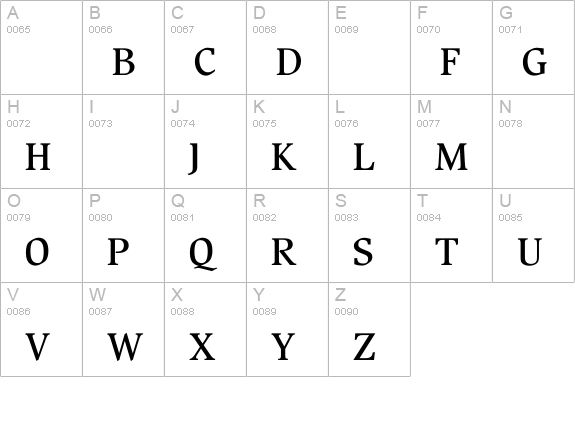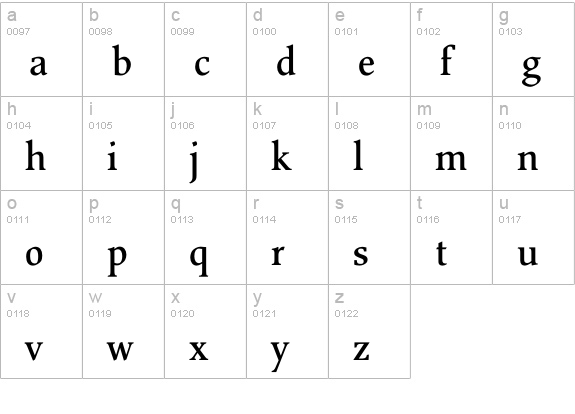
BeckenhamMedium Font Details
BeckenhamMedium font is a modern and versatile typeface that strikes the perfect balance between elegance and readability. Its clean lines and subtle curves make it suitable for a wide range of design projects, from branding to editorial design. This font exudes professionalism and sophistication, making it a great choice for corporate materials, websites, and marketing collateral. Its medium weight provides just the right amount of impact without being overpowering. Best of all, BeckenhamMedium font is available for free download at FontsMarket.com. Whether you're a seasoned designer looking to add a new font to your collection or a beginner exploring typography for the first time, BeckenhamMedium is a valuable addition to any font library. Download it today and elevate your design projects with this stylish and versatile typeface.